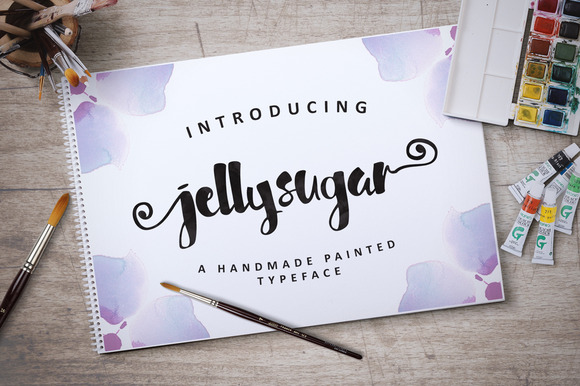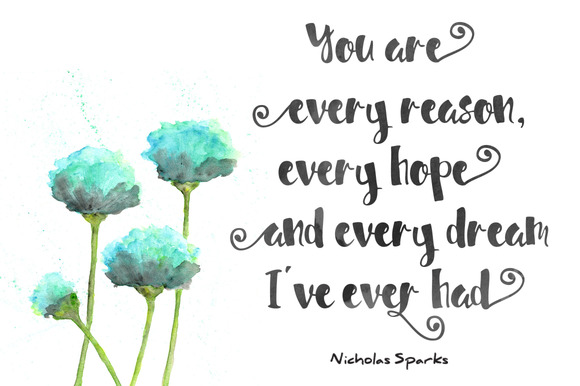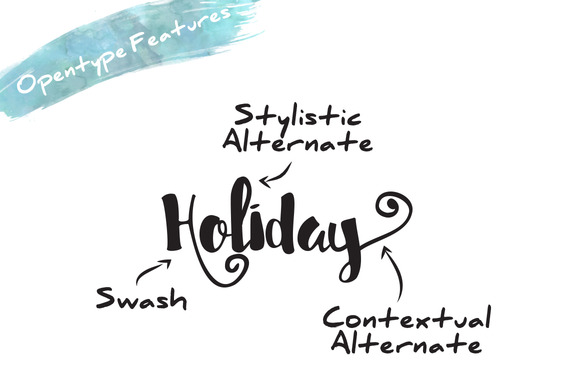
HomeScript FontsJellysugar Font Script Fonts Jellysugar Font FacebookXPinterestWhatsApp Jellysugar Font Poster 2 Jellysugar Font Poster 3 About Jellysugar Font Jellysugar Typeface is a beautiful handmade brush script with a natural look. DOWNLOAD ON CREATIVE FABRICAThis font is sold and delivered by Creative Fabrica. Font Canyon may earn a commission if you buy through this link. People also explored Hello Designer Font Voguish Font Someday Font Ruang Jenuh Font Beauty Friday Font Heartberry Font Summer Paradise Font Arthur Keith Font Milky Font 270 0 TagsJellysugar Font Previous articleMagicstone FontNext articleDreamlight Font LEAVE A REPLY Cancel reply Comment: Please enter your comment! Name:* Please enter your name here Email:* You have entered an incorrect email address! Please enter your email address here Website: Save my name, email, and website in this browser for the next time I comment. Personal Use Free Jurnal Personal Use Free Read more about this font Sushi Day Personal Use Free Read more about this font Stereofidelic Personal Use Free Read more about this font Vilsuve Personal Use Free Read more about this font BLOG Free Fonts Risk: Why Free Fonts Can Be Dangerous for Designers Free Fonts Risk: Why Free Fonts Can Be Dangerous for Designers Using free fonts is a common practice in web and graphic design. However, the... 5 Fonts That Will Dominate Design Trends in 2026 Best Fonts for YouTube Videos: Make Your Thumbnails Stand Out Exploring Font Trends